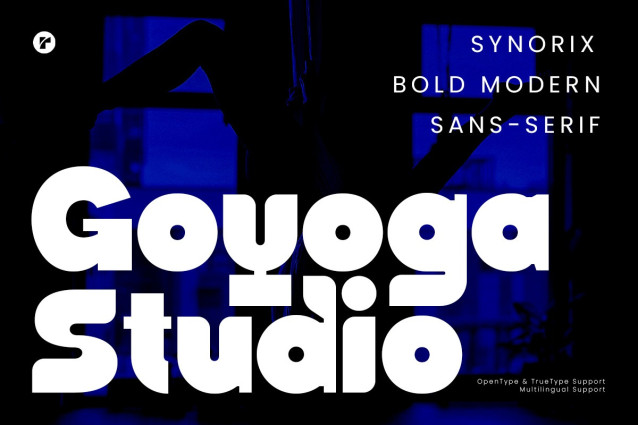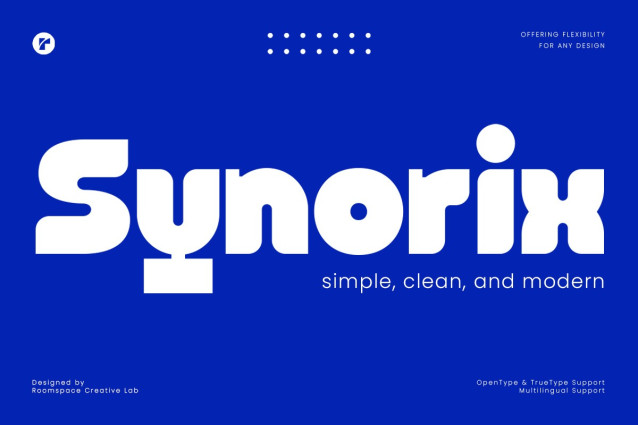
Synorix Font
Synorix Font is a bold and modern sans serif font with a soft, rounded touch. Designed to be thick, clean, and visually striking, this font is perfect for logos, branding, headlines, posters, and more. Its smooth curves and balanced proportions give it a friendly yet strong personality, making it a great choice for both creative and professional projects.
Whether you’re working on a fashion brand, social media graphics, or a sleek corporate identity, Synorix brings a fresh and contemporary feel. Plus, with multilingual support, it’s ready to be used in designs for a global audience. Add a touch of bold simplicity to your work with Synorix!